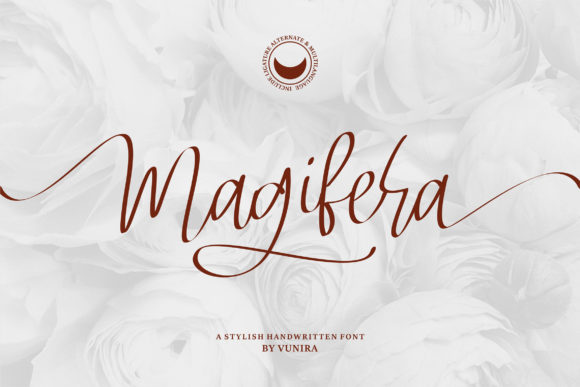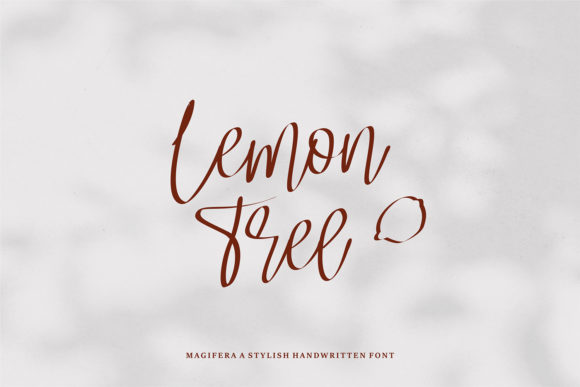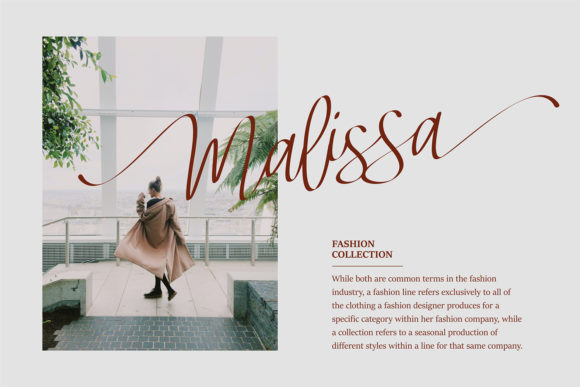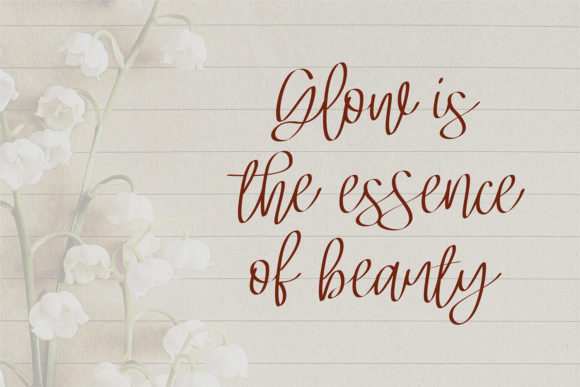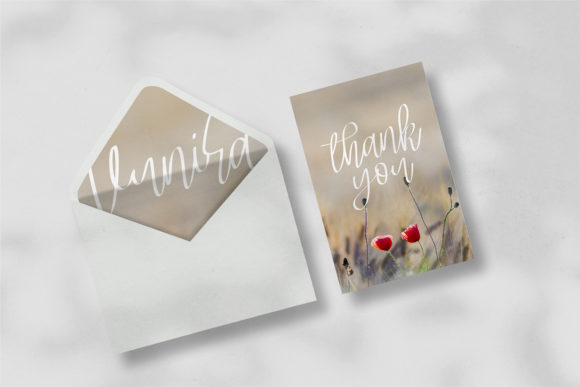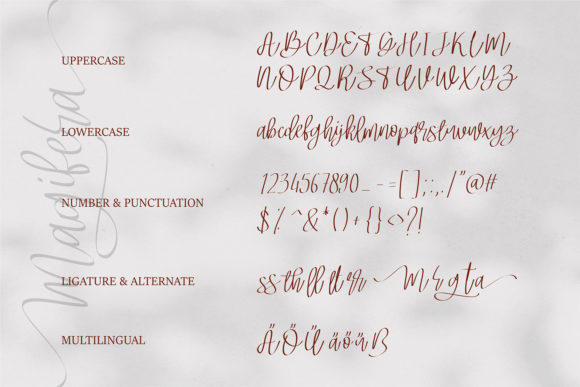
Magifera Font
About Magifera Font
Magifera sounds like a stunning and versatile handwritten font that can add a touch of delicacy, elegance, and flow to a variety of design projects. Its well-balanced characters make it suitable for a wide range of creative ideas. Here are some suggestions on how to use Magifera font to bring your designs to life:
1. Wedding Invitations: Design exquisite and romantic wedding invitations with Magifera font, setting the tone for a beautiful and memorable event.
2. Thank You Cards: Customize thank you cards with Magifera font to express gratitude in an elegant and heartfelt way.
3. Quotes and Greeting Cards: Create charming quote art and greeting cards using Magifera font, combining inspiring messages with a touch of sophistication.
4. Logo Design: Utilize Magifera font in logo designs for businesses looking to portray a refined and graceful brand identity, such as luxury spas or boutique hotels.
5. Business Stationery: Design elegant business stationery, like letterheads and envelopes, with Magifera font to leave a lasting impression on clients and partners.
6. Social Media Graphics: Use Magifera font in social media graphics to add a sense of elegance and charm to your online content.
7. Blog Headers: Incorporate Magifera font into blog headers and titles to give your blog a sophisticated and artistic touch.
8. Product Packaging: Customize product packaging with Magifera font, especially for high-end or artisanal products, to enhance their visual appeal.
9. Personal Stationery: Create personalized stationery items, like notecards or gift tags, with Magifera font for a touch of refinement and style.
10. Book Covers: Use Magifera font in book covers to create a captivating and elegant design for novels or poetry books.
11. Art Prints: Design art prints featuring Magifera font, perfect for home decor or to sell in art galleries, showcasing the beauty of handwritten lettering.
12. Event Invitations: Design sophisticated invitations for special events, such as galas or upscale parties, using Magifera font for an upscale and artistic look.
13. Digital Branding: Incorporate Magifera font in digital branding materials, such as email signatures and website headers, to establish a consistent and graceful brand identity.
14. Magazine Headings: Utilize Magifera font in magazine headings and titles to add a touch of elegance and charm to editorial layouts.
15. Packaging Labels: Customize product labels or tags with Magifera font for an elegant and refined appearance on retail items.
16. Fine Dining Menus: Design elegant menus for fine dining restaurants, featuring Magifera font to elevate the dining experience with a sense of grace.
17. Luxury Branding: Use Magifera font in branding materials for luxury brands, conveying a sense of sophistication and exclusivity.
18. Interior Decor: Create custom art or posters with Magifera font to decorate interior spaces with a delicate and artistic touch.
19. Event Signage: Design event signage using Magifera font for weddings, parties, or corporate events, adding a touch of elegance to the venue.
20. Inspirational Prints: Create beautiful prints with inspiring quotes or phrases using Magifera font to spread positivity and elegance.
In conclusion, Magifera is a delicate and elegant handwritten font that can breathe life into your creative ideas. Whether you’re working on wedding invitations, branding materials, or social media graphics, Magifera font is sure to add a touch of sophistication and grace, making your designs truly come alive.